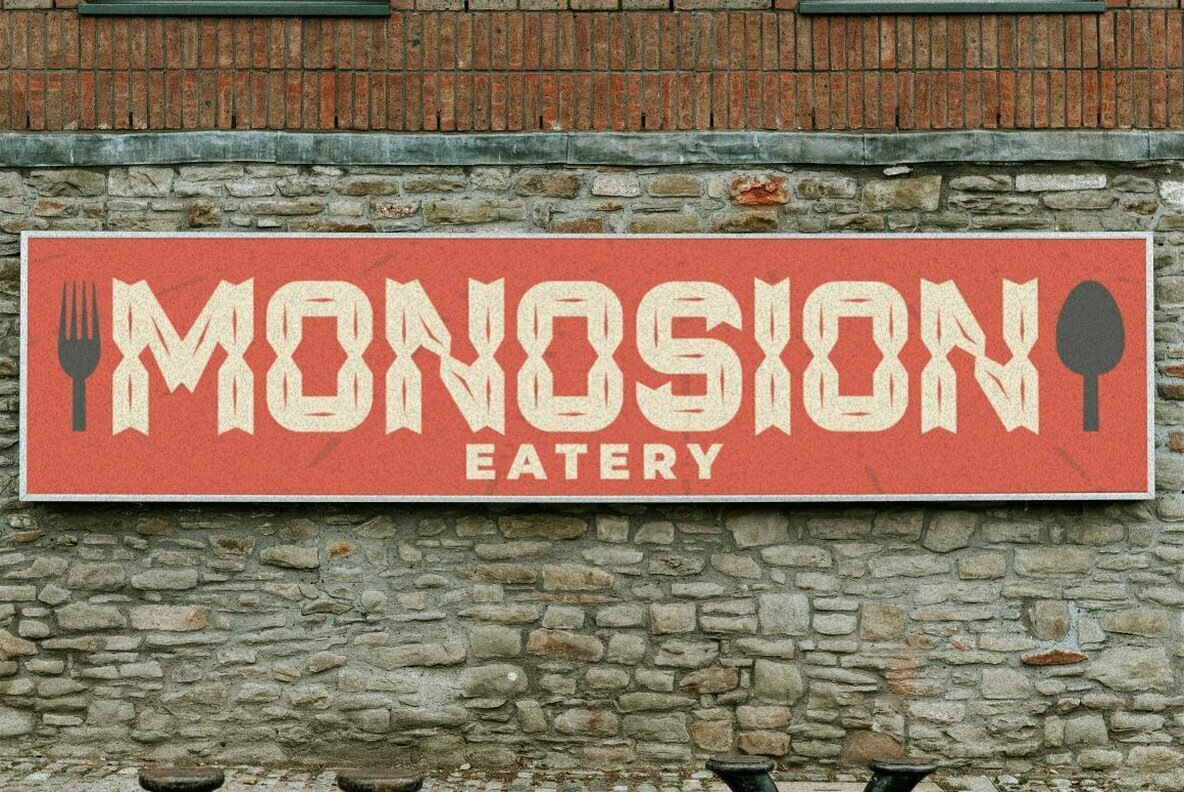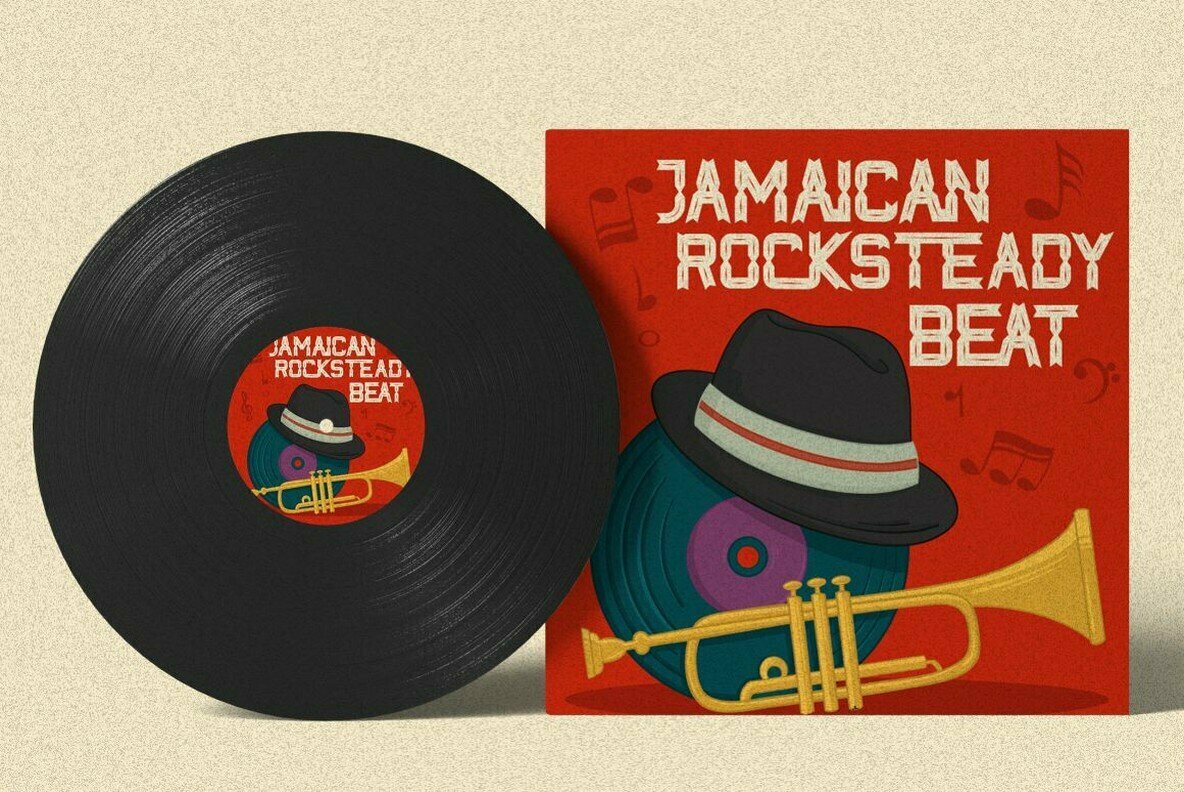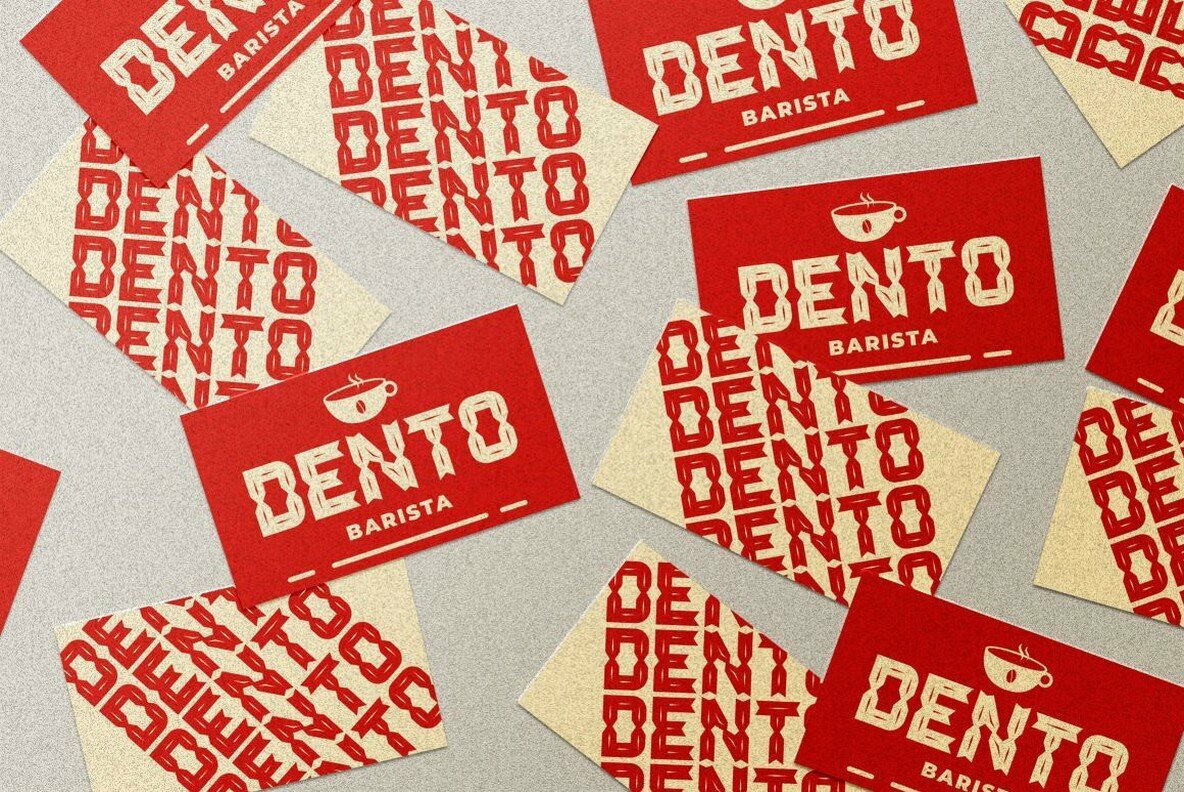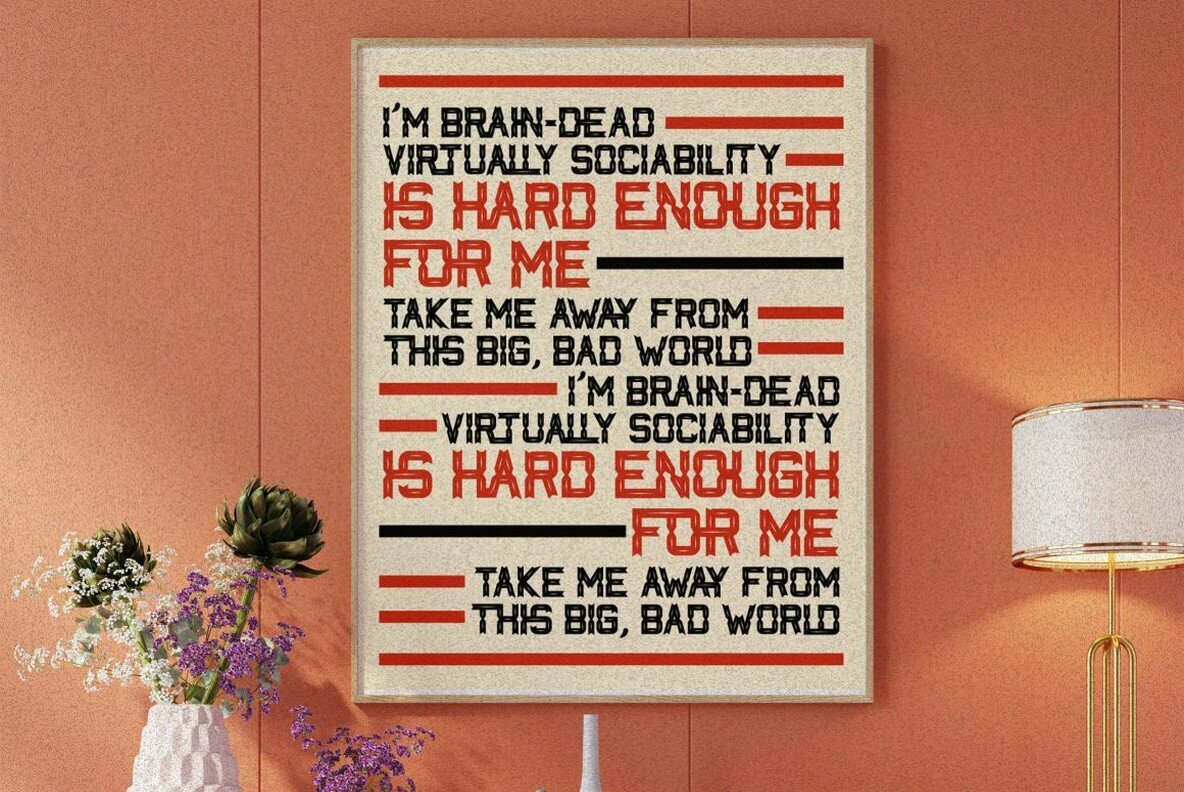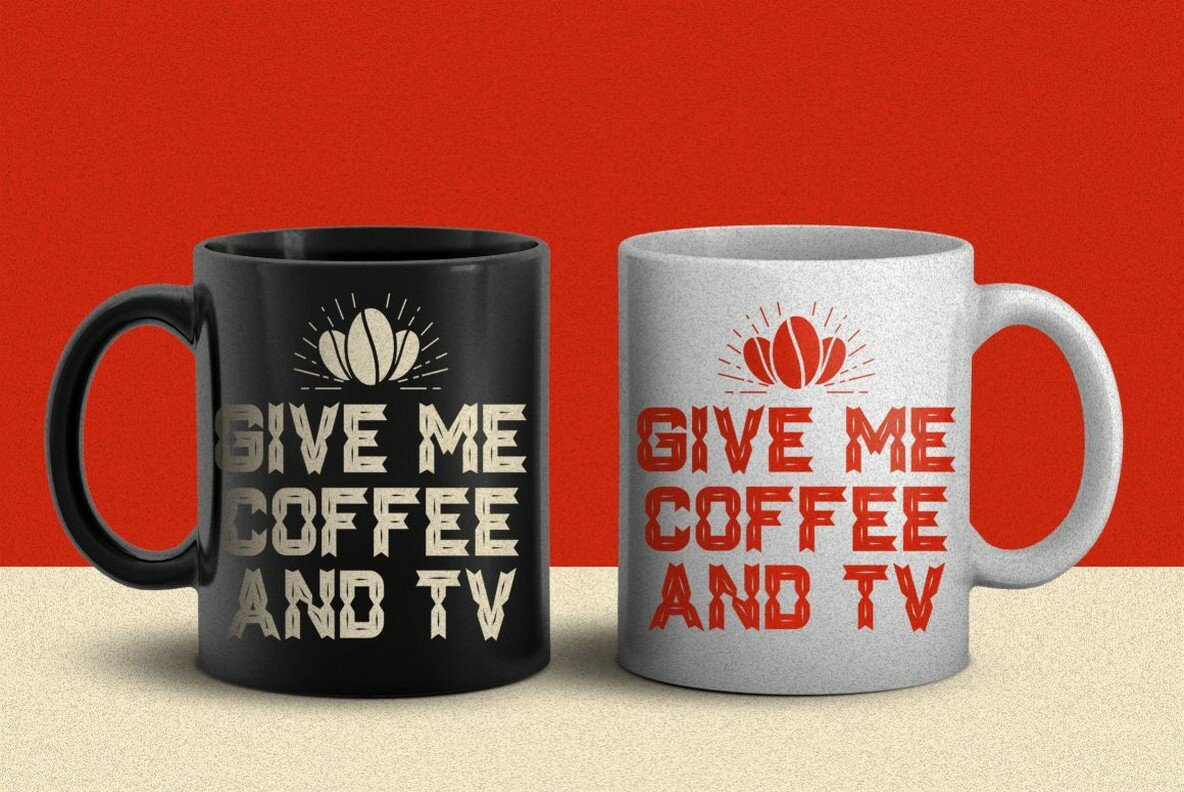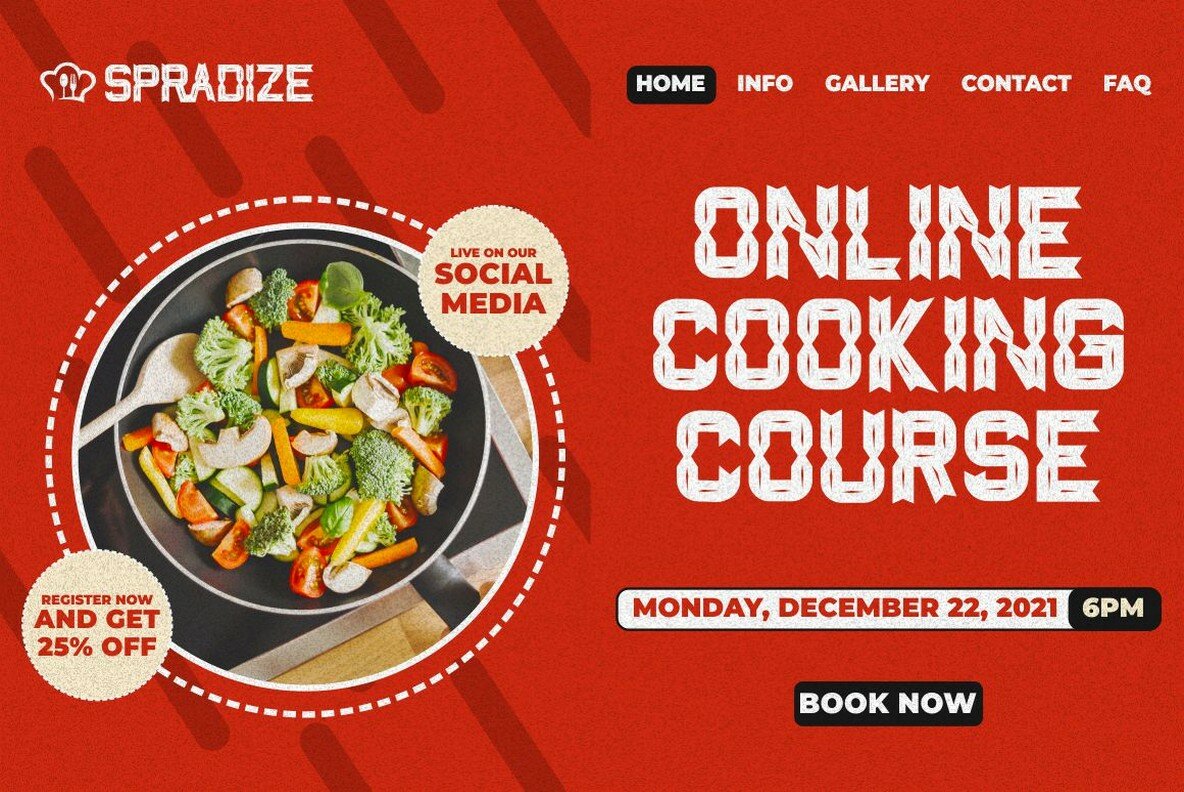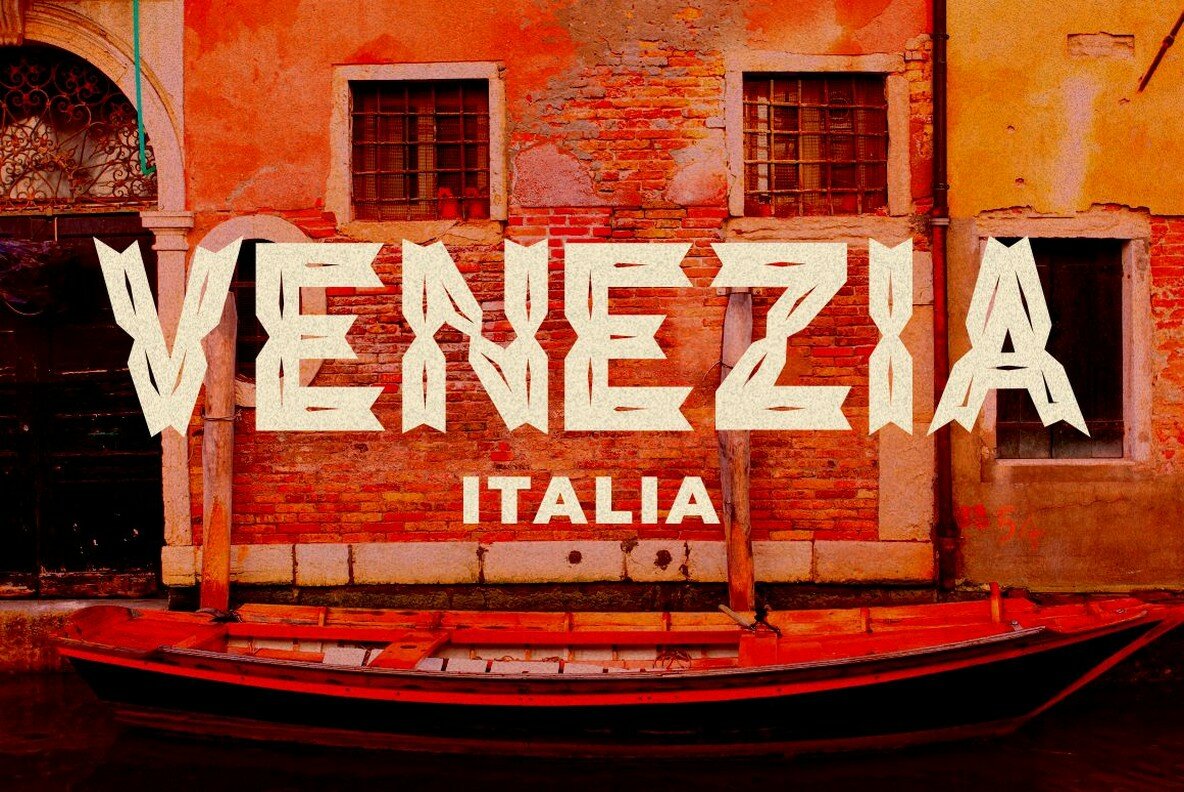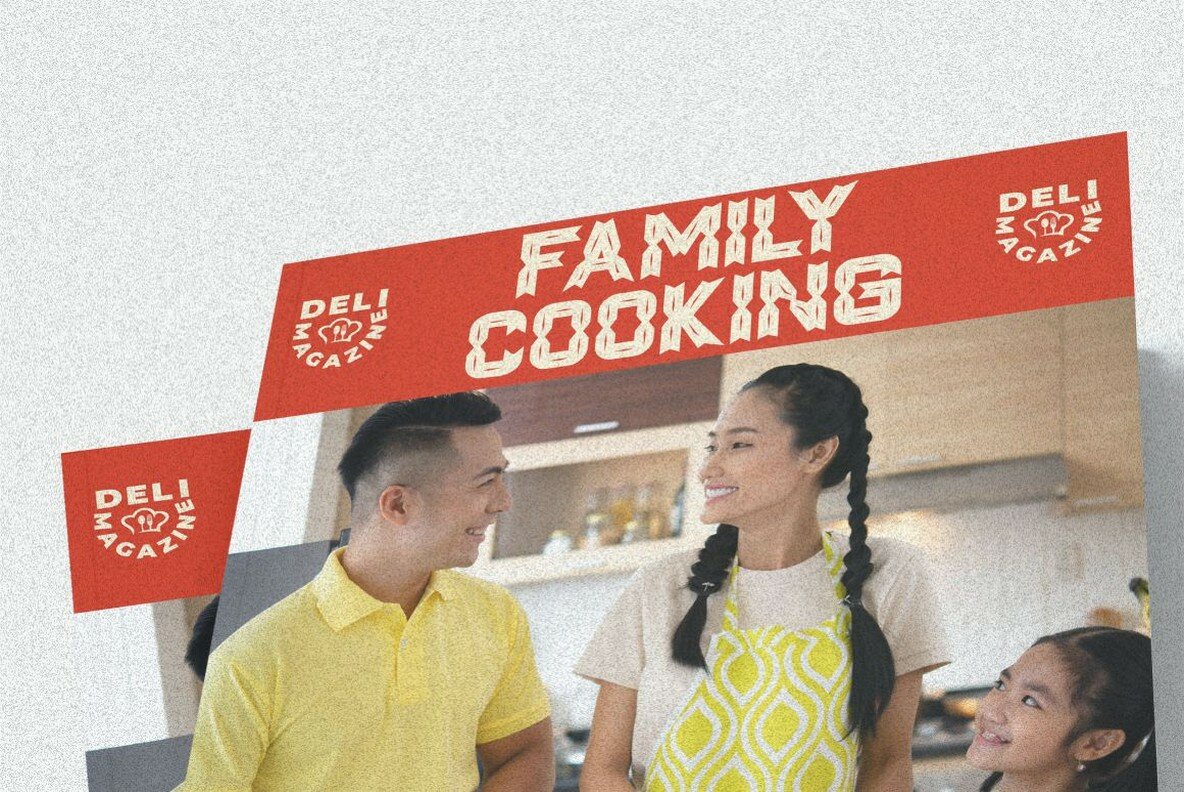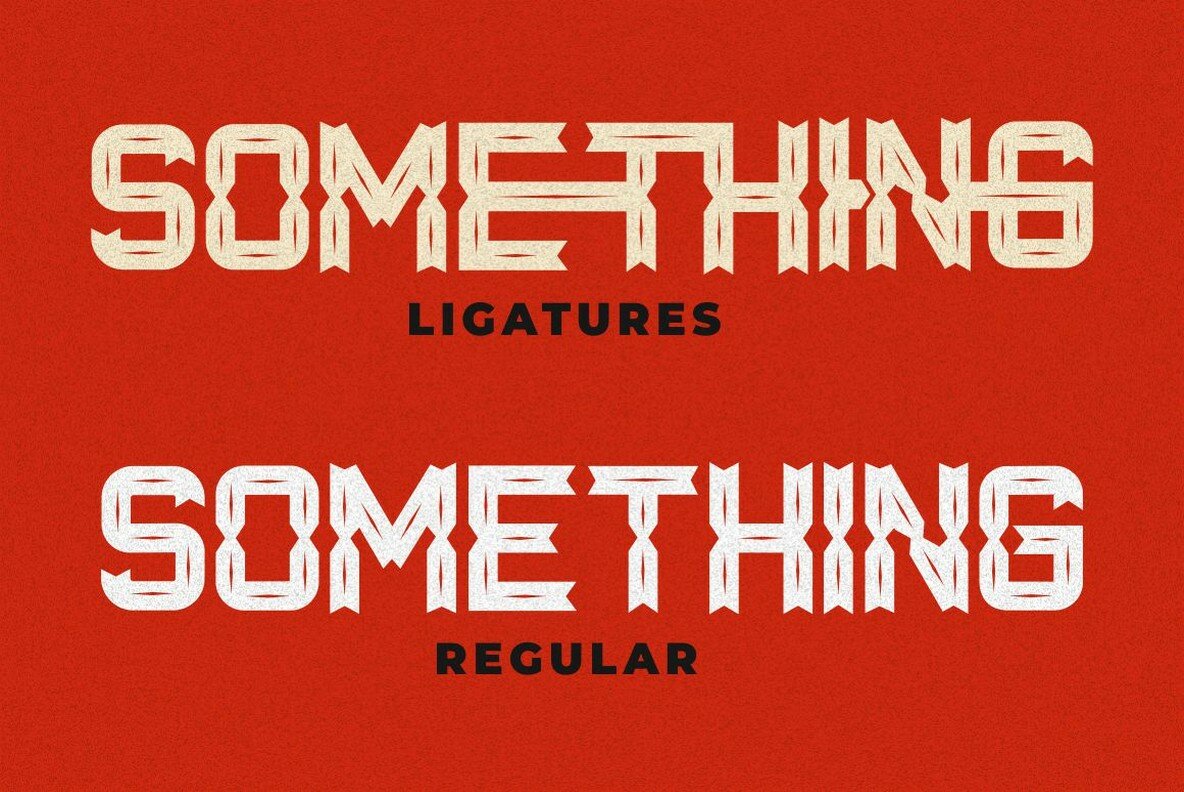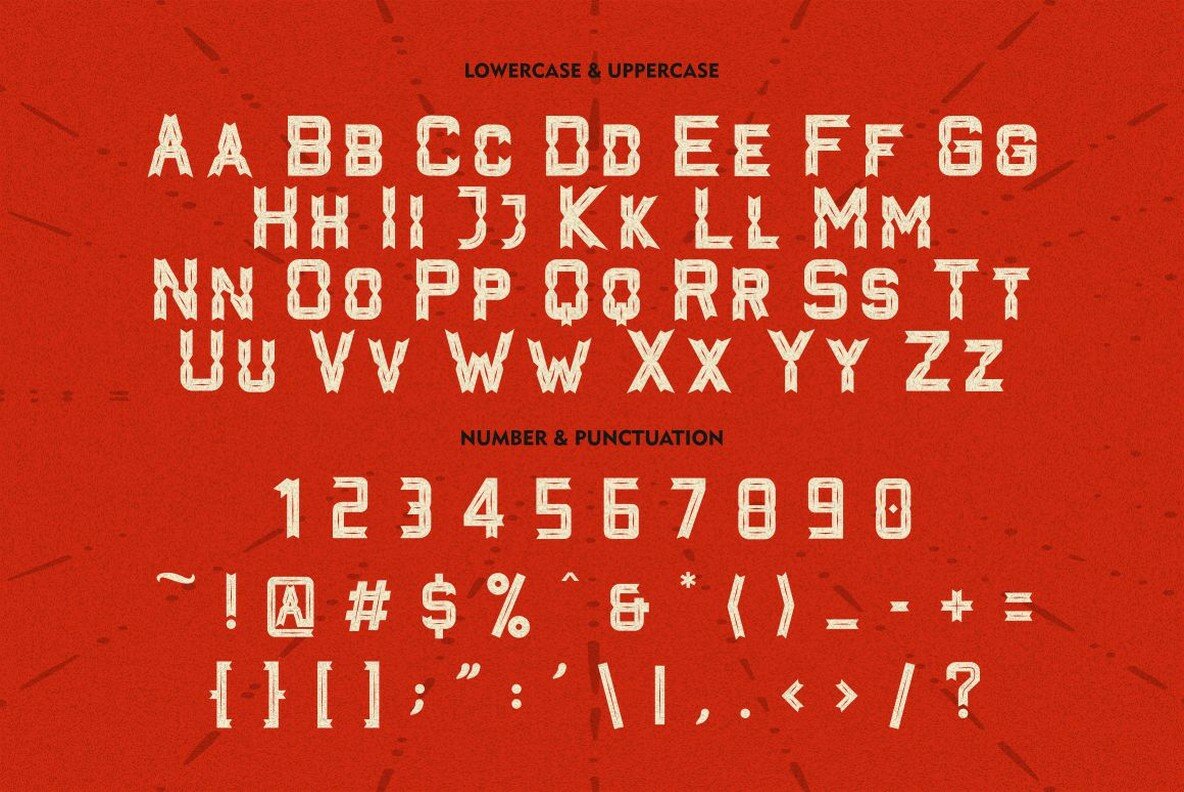
Classic Ribbon Font
Classic Ribbon
Drawing inspiration from music posters, carnivals, and classic typography, Classic Ribbon offers a unique inline style that breathes life into your designs. Ideal for those seeking to capture a nostalgic yet contemporary feel, this font is perfect for headlines in music promotions, film titles, YouTube tutorials, and gig posters. Its versatility extends further when paired with the included graphic presets, embodying a truly authentic classic aesthetic. Suitable for a wide range of projects, Classic Ribbon brings a touch of elegance to logos, wedding invitations, branding, and more. From eye-catching landing pages and apparel designs to expressive greeting cards and social media graphics, the font effortlessly complements any creative endeavor. Also, its compatibility with various programs and operating systems, such as Procreate, Windows, and macOS, ensures seamless integration across platforms. Additionally, its multilingual support broadens its usability to an international audience.Classic Ribbon: A Vintage-Inspired Typeface